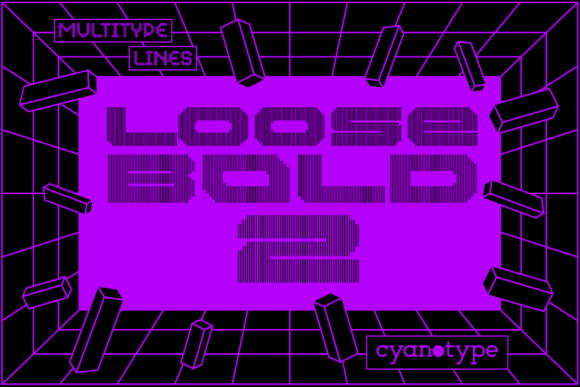
Dive into the world of MultiType Lines Loose Bold 2, a distinctive pixelated decorative font that will distort and elevate your designs with its trendy and unusual charm. Unleash your creativity with this PUA-encoded font, effortlessly accessing all glyphs and swashes to bring your artistic vision to life.
Harness the power of MultiType Lines Loose Bold 2 to make an unforgettable impact in the world of clothing lines. With its bold, pixelated strokes, this font exudes a captivating, distorted aesthetic that will make your designs pop. Imagine your clothing line's logo or slogan emblazoned in this unique font, commanding attention and leaving a lasting impression on your customers.
MultiType Lines Loose Bold 2 is a symphony of creativity, perfectly attuned to the dynamic and ever-evolving fashion industry. Its pixelated texture adds a touch of modernity, while its bold lines convey a sense of strength and confidence. This font is your gateway to creating clothing lines that resonate with today's style-savvy consumers.
Step into the spotlight with MultiType Lines Loose Bold 2, a font that embodies originality and artistic flair. Let your clothing line stand out from the crowd with this extraordinary font, capturing the attention of fashionistas and trendsetters alike. Embrace the pixelated revolution and watch your clothing line soar to new heights of success.